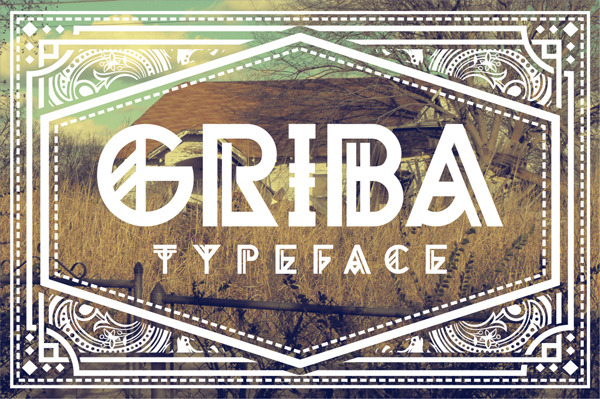
GRIBA Typeface
GRIBA Typeface is experimental display typeface, based on every shape of each characters and transformed into double lines which make this fonts is experimental. This fonts perfect for poster, tittles, and t-shirt designs.
Available over 300 glyphs slots in this typeface.